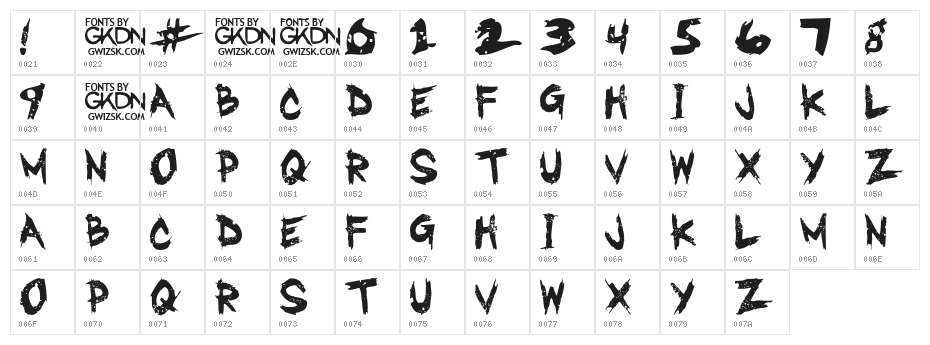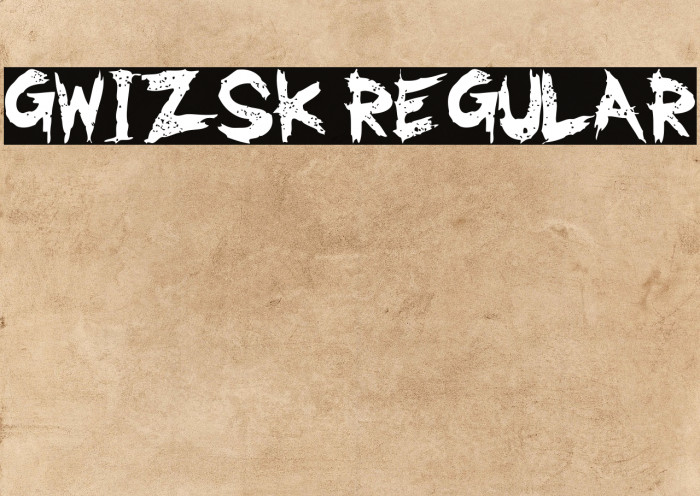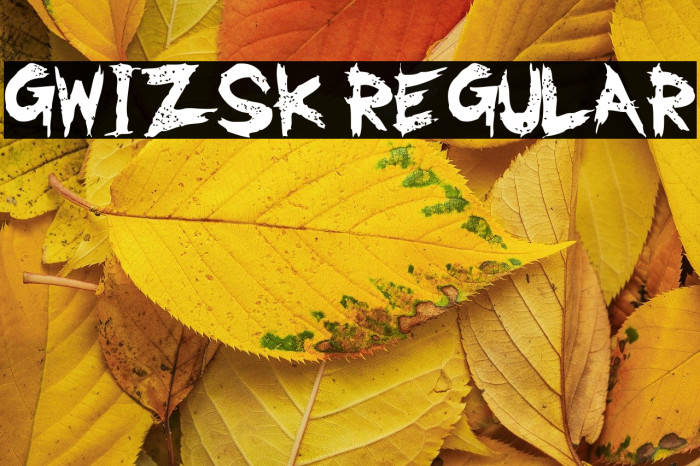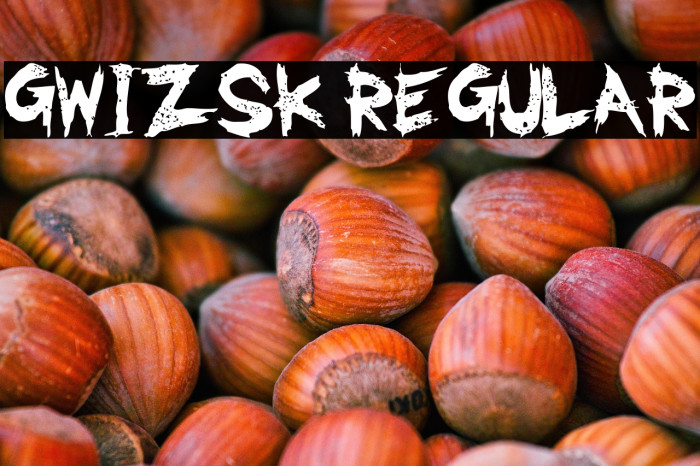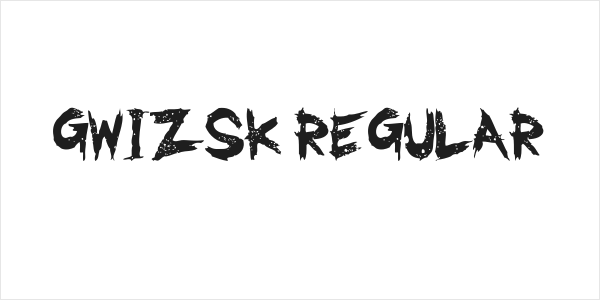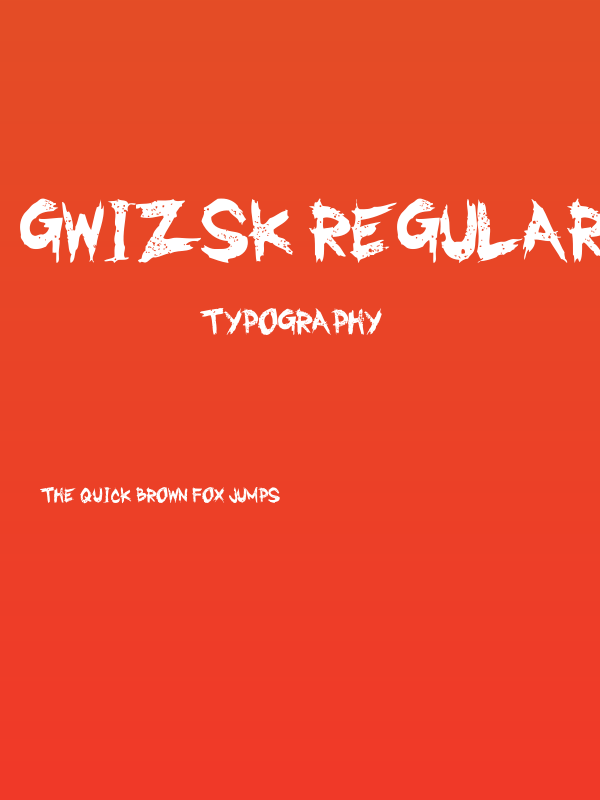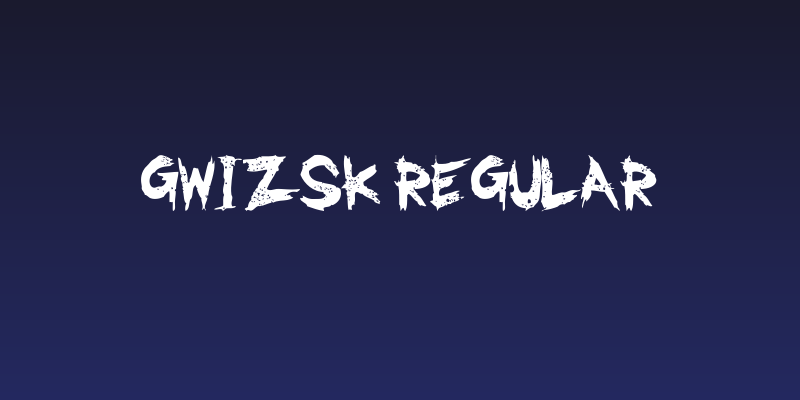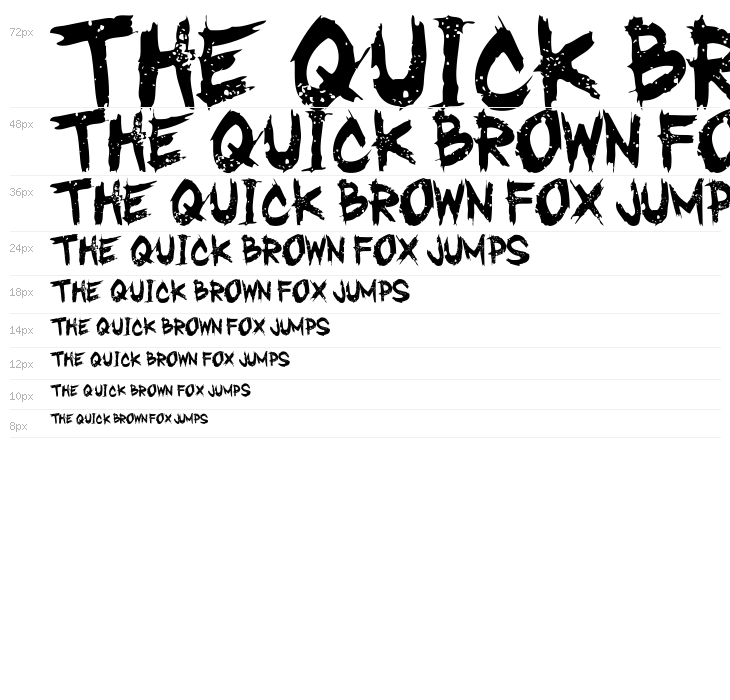
GwizsK Regular Font
GwizsK Regular Description
This font features a bold, distressed style with a grunge aesthetic. The characters are irregular and jagged, giving them a raw, edgy appearance. The uppercase and lowercase letters maintain a consistent theme, with rough edges and a hand-drawn look. The numbers and special characters follow the same design, ensuring a cohesive appearance across all elements. This font is highly decorative, making it suitable for projects that require a strong visual impact.
| Proposed Projects | Ideal for music album covers, edgy posters, streetwear branding, and any project requiring a bold, rebellious look. |